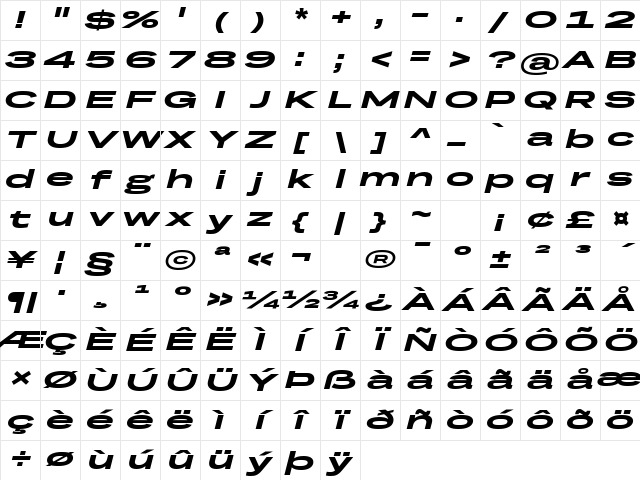
Grtsk Mega Bold Italic Free Font
Grtsk Mega Bold Italic
Foundry: BlackFoundry
Design Context for Grtsk Mega
Grtsk Mega is a composed and adaptable typeface that performs quietly and consistently across a wide range of design contexts. The slanted form adds forward momentum and visual energy. Its bold stroke weight gives it real presence on the page.
Pro Tip: Use Grtsk Mega for emphasis, pull quotes, and subheadings where its slanted energy can add rhythm to the layout.